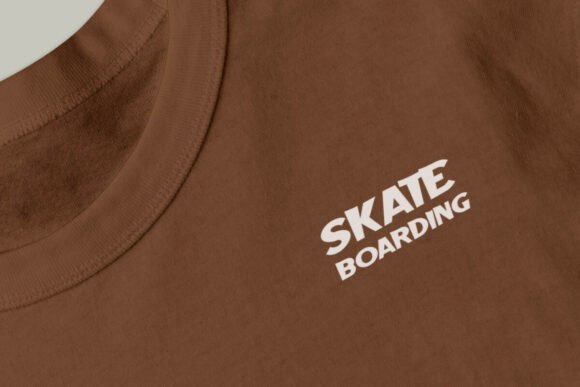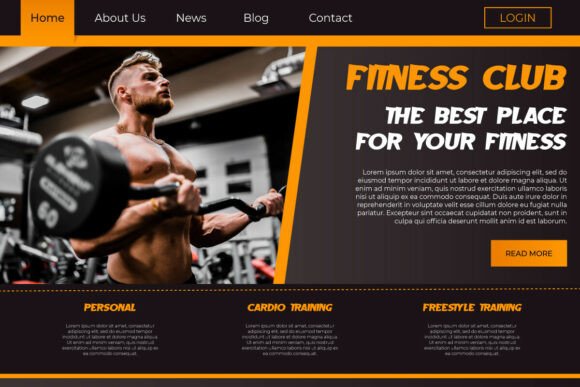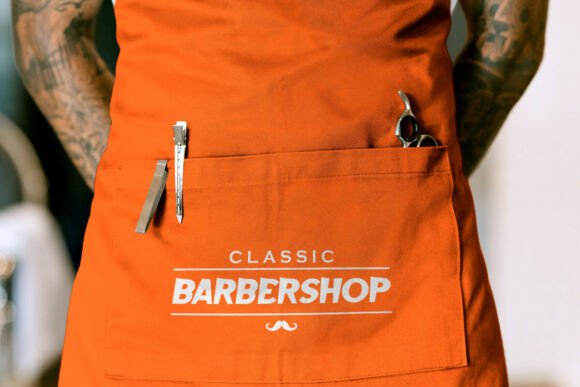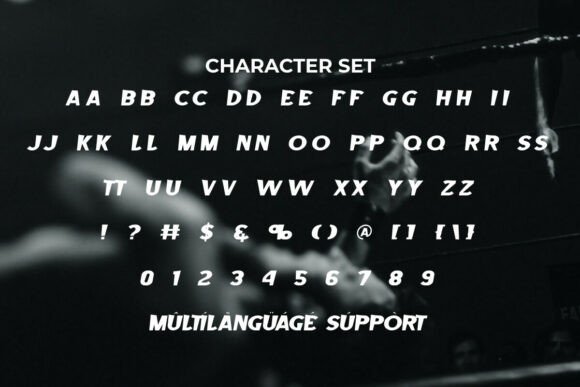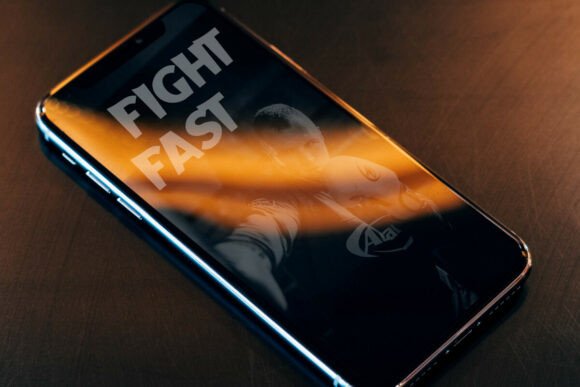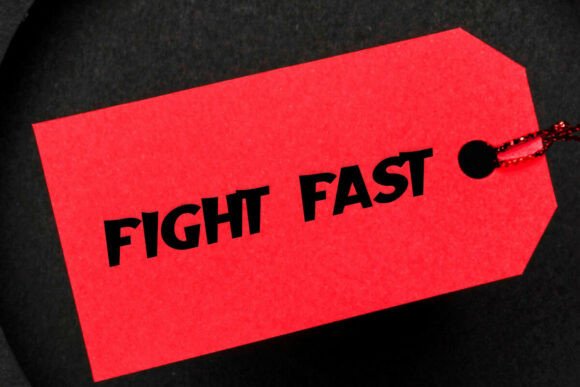
Unleash the Power of Speed: Introducing Fight Fast Font
In the world of sports and competition branding, making a bold statement is crucial. Your logo, headers, and marketing materials need to exude energy, strength, and a sense of raw power. That’s where Fight Fast Font comes in – an ultra-bold, high-impact display font engineered for speed, strength, and explosive energy. Designed to capture the essence of action-packed sports and competition branding, Fight Fast is the definitive choice for designers and crafters looking to make a lasting impression.
The Anatomy of Fight Fast Font
Fight Fast Font boasts a racing-style typeface with sharp, dynamic angles and a forward-slanted posture, giving the appearance of rapid motion and aggressive momentum. This design perfectly reflects the “Fight Fast” name, conveying a sense of urgency and velocity. The font’s construction is solid and powerful, making it ideal for use in large sizes without sacrificing its aggressive edge.
The Perfect Solution for Sports and Competition Branding
Fight Fast typeface is the ideal solution for logos, headers, posters, and apparel relating to martial arts, racing, fitness, and high-adrenaline events. Whether you’re designing a logo for a professional sports team, creating promotional materials for a fitness event, or crafting apparel for a martial arts competition, Fight Fast Font is the perfect choice. Its unique blend of strength, energy, and speed makes it an unbeatable asset for any brand looking to make a bold statement.
Key Features of Fight Fast Font
- Ultra-bold and high-impact design: Engineered for speed, strength, and raw, explosive energy.
- Racing-style typeface: Features sharp, dynamic angles and a forward-slanted posture.
- Solid and powerful construction: Designed to command attention in large sizes without sacrificing its aggressive edge.
- Perfect for sports and competition branding: Ideal for logos, headers, posters, and apparel relating to martial arts, racing, fitness, and high-adrenaline events.
Why Choose Fight Fast Font?
When it comes to creating a bold and impactful brand identity, Fight Fast Font is the ultimate choice. Here are just a few reasons why:
- Instant recognition: Fight Fast Font’s unique design ensures instant recognition and recall.
- Versatility: Suitable for a wide range of applications, from logos and headers to posters and apparel.
- Modern and athletic aesthetic: Delivers a message with unapologetic power and a distinct, speedy, and modern athletic vibe.
Tips for Using Fight Fast Font
To get the most out of Fight Fast Font, here are a few tips:
- Use it boldly: Fight Fast Font is designed to make a statement, so don’t be afraid to use it in large sizes.
- Pair it with complementary fonts: Combine Fight Fast Font with cleaner, sans-serif fonts to create visual interest and hierarchy.
- Experiment with colors: Fight Fast Font looks great in bold, bright colors that reflect the energy and excitement of sports and competition branding.
Fight Fast Font is a game-changer for designers and crafters looking to create bold, impactful branding for sports and competition events. With its ultra-bold design, racing-style typeface, and solid construction, Fight Fast Font is the perfect solution for anyone looking to deliver a message with unapologetic power and a distinct, speedy, and modern athletic aesthetic. So why wait? Unleash the power of speed and take your branding to the next level with Fight Fast Font.